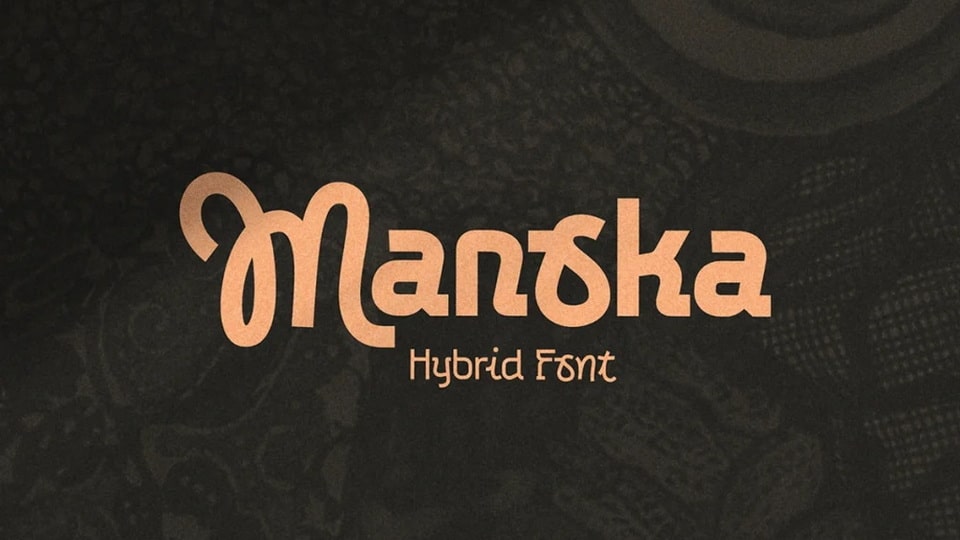
Download Manoka font, a versatile typeface that effortlessly blends two distinct styles – the crisp, clean lines of sans-serif with the fluid elegance of script.